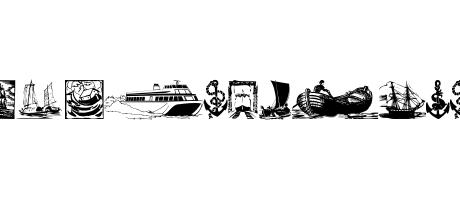
ShipsNBoats
By Manfred Klein
ShipsNBoats, a nautical-themed font, evokes the spirit of adventure. Its glyphs are charming illustrations of various vessels, from sailboats and ferries to rowboats and anchors. The style is reminiscent of vintage woodcuts, creating a nostalgic and slightly whimsical feel perfect for maritime-themed projects. Each letter is a unique vessel or nautical symbol.